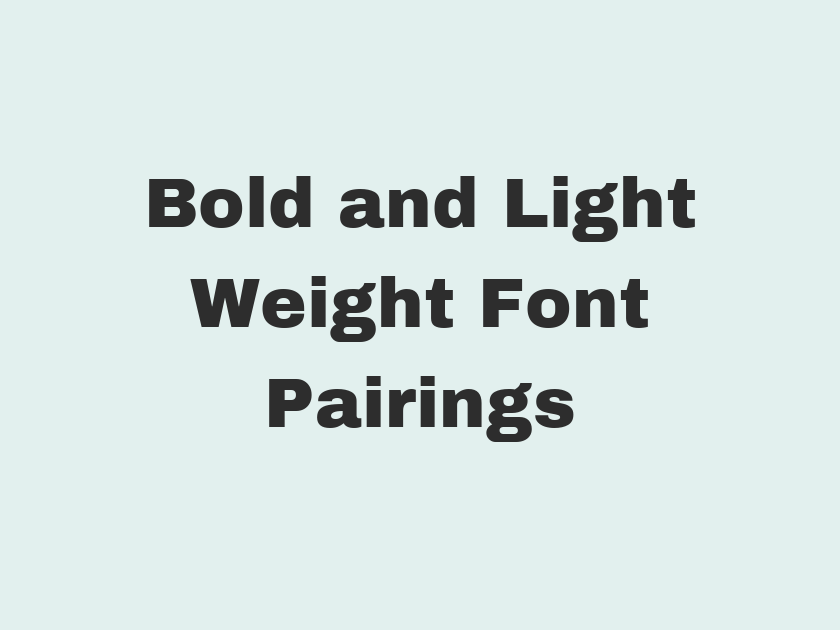
10 Best Bold and Light Weight Font Pairings
Pairing a heavyweight display face with a light, airy text face is one of the most reliable moves in font pairing: the weight contrast does the work that font-family contrast usually has to do, so you can keep the palette of shapes simple while still getting a headline that shouts and body copy that reads comfortably for paragraphs at a time. The trick is choosing a light weight that stays legible at small sizes rather than turning wispy, and a bold or black display weight that has enough personality to carry a headline on its own.
Archivo Black + Archivo
Bold Statements, Clean Structure
The lighter cut of the same superfamily keeps paragraphs calm while echoing the display font's proportions.
Because Archivo Black and Archivo share a skeleton, this is less a pairing than a controlled contrast within one type family; the black weight reads as a shout, the light-to-regular body reads as a conversation. It suits product pages and app marketing where consistency matters more than variety.
Anton + Nunito Sans
Impact Without the Noise
A rounded, humanist body font softens the display font's density and keeps long copy approachable.
Anton is about as heavy as a sans gets, so it needs a body font with generous breathing room; Nunito Sans, set light, gives paragraphs a soft, rounded counterpoint. This combination works well for poster-style landing pages and event sites that need one big punch of a headline.
Bebas Neue + Mulish
Tall Type, Short Attention Span
A neutral, light-weight sans that steps back and lets the condensed headline take the spotlight.
Bebas Neue is all caps and all attitude, so pairing it with something as restrained as Mulish prevents the page from feeling like it is shouting in two directions at once. Reach for this combination on editorial headers, badges, and streetwear-adjacent branding.
Oswald + Karla
Editorial Weight, Modern Ease
A light, low-contrast grotesque that keeps the reading experience friendly beneath a strong headline.
Oswald’s condensed bold has the gravity of old newspaper mastheads, while Karla in a light weight brings a contemporary, approachable rhythm to body text. It is a dependable choice for blogs and magazine-style sites that want authority up top and readability below.
Playfair Display + Jost
Elegant Contrast in Black
A geometric, light body font that keeps things airy under a heavier serif headline.
Here the contrast is doubled: bold serif against light sans, and high-contrast letterforms against a font with almost none. That double contrast is what makes editorial and boutique retail sites feel considered rather than accidental.
Abril Fatface + Lato
Fashion-Forward Display Type
A humanist sans in a light weight that lets long-form copy breathe after a heavy headline.
Abril Fatface is decorative and dense, almost more illustration than letterform, so the body font needs to disappear into the background; Lato at a light weight does exactly that. This is a strong match for fashion, beauty, and lifestyle brands.
Fjalla One + Work Sans
Sturdy Headlines, Open Body
A workhorse sans that stays light and legible across long stretches of interface copy.
Fjalla One is compact and confident without being as extreme as a true condensed display face, which makes Work Sans an easy, low-drama partner underneath it. The pairing reads well in both print layouts and screen interfaces.
Rajdhani + Quicksand
Technical Edge, Soft Landing
A rounded, light-weight sans that tempers the headline's angular, technical feel.
Rajdhani’s squared-off, slightly futuristic bold gives dashboards and tech branding an edge, and Quicksand’s rounded light weight keeps the surrounding text from feeling cold. Use this where a product needs to feel capable but still human.
Space Grotesk + Inter
Structured Type for Digital Products
A light, screen-optimized sans built for clarity at small sizes across interfaces.
Space Grotesk’s bold weight has just enough quirk in its letterforms to feel designed rather than default, while Inter’s light weight was engineered specifically for UI legibility. Together they suit SaaS marketing pages and product documentation equally well.
League Gothic + Rubik
Vintage Muscle, Modern Manners
A light, slightly rounded sans that keeps the composition feeling current rather than retro.
League Gothic carries an early-twentieth-century industrial mood, and setting Rubik light beneath it pulls the overall composition back into the present. This works nicely for craft, hospitality, and small-batch product branding that wants a nostalgic accent without going full vintage.
Tips for using bold and light font pairings
Keep the weight gap deliberate. A jump from black to thin reads as intentional; a jump from bold to medium can look like a mistake.
Check the light weight at real body-text sizes before committing. Some light cuts thin out too much below 16px and start to fight with screen rendering.
Limit yourself to two weights per font pair. Adding a third weight for captions or labels is fine, but stick to fonts from the same families you already chose.